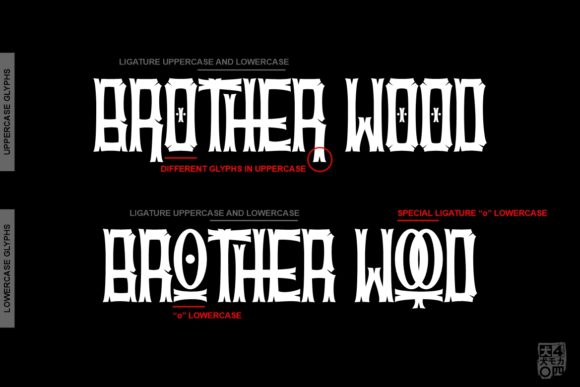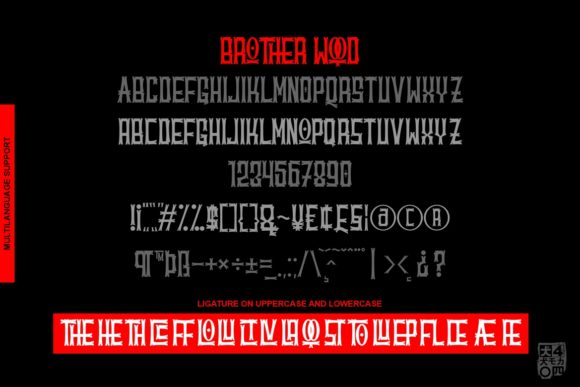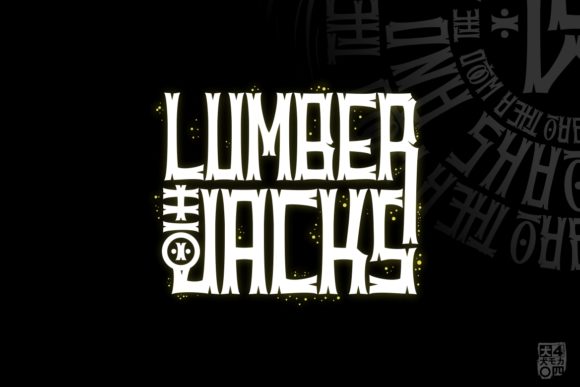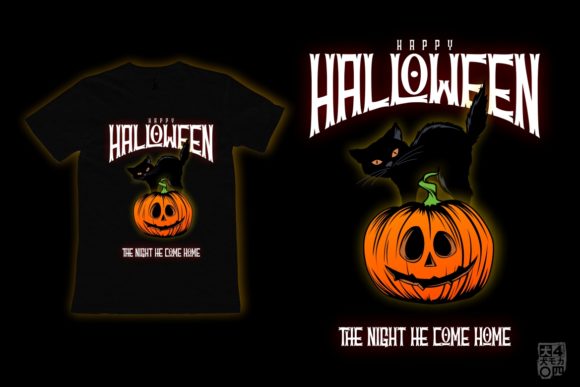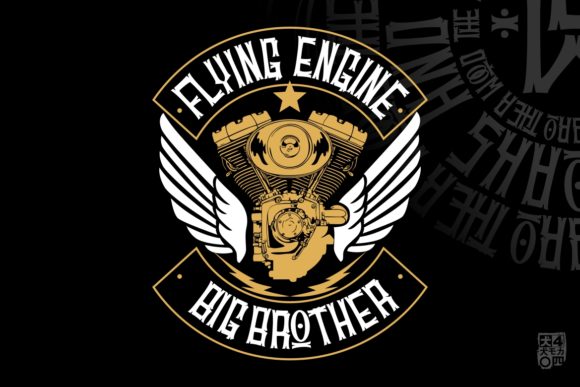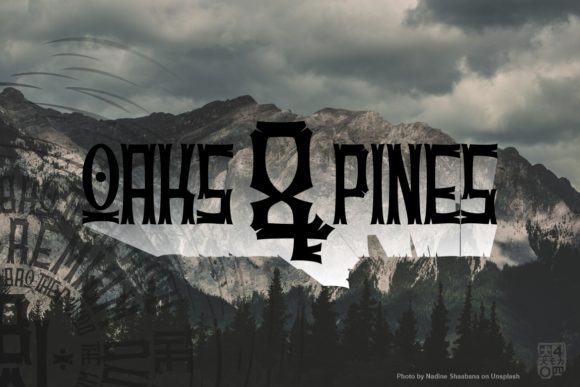
Introducing Brother Wood Font: A Bold and Unique Display Font
Are you tired of using the same old fonts in your designs? Look no further than Brother Wood Font, a bold and unique display font that’s sure to add a touch of original character to your work. With its strong, confident, and dynamic style, Brother Wood Font is perfect for designers and crafters looking to make a statement.
The Characteristics of Brother Wood Font
Brother Wood Font is a sans-serif font that’s designed to make a bold impression. Its sturdy and rugged appearance gives it a unique edge that’s perfect for headlines, titles, and other display text. The font’s bold and confident style makes it ideal for use in a variety of design projects, from posters and flyers to logos and branding materials.
What Makes Brother Wood Font So Special?
So, what sets Brother Wood Font apart from other display fonts on the market? Here are just a few things that make it so special:
- Unique Character: Brother Wood Font has a distinctive, hand-crafted feel that’s perfect for designers looking to add a touch of personality to their work.
- Bold and Confident: This font reads as strong and confident, making it perfect for use in headlines and titles.
- Dynamic Style: Brother Wood Font has a dynamic, energetic feel that’s sure to grab attention.
- Versatile: This font can be used in a variety of design projects, from print materials to digital applications.
How to Use Brother Wood Font in Your Designs
Brother Wood Font is a versatile font that can be used in a variety of design projects. Here are a few ideas to get you started:
- Posters and Flyers: Use Brother Wood Font to create eye-catching headlines and titles for your posters and flyers.
- Logos and Branding: This font is perfect for use in logos and branding materials, where a bold and confident style can make a big impact.
- Social Media Graphics: Use Brother Wood Font to create engaging social media graphics that are sure to grab attention.
- Web Design: This font can be used in web design projects, such as headings and titles, to add a touch of personality to your website.
Tips for Getting the Most Out of Brother Wood Font
Here are a few tips for getting the most out of Brother Wood Font:
- Use it Sparingly: Because Brother Wood Font is a bold and attention-grabbing font, it’s best to use it sparingly in your designs. Use it for headlines and titles, and pair it with a simpler font for body text.
- Experiment with Colors: Brother Wood Font looks great in a variety of colors, so don’t be afraid to experiment and find the perfect color scheme for your design.
- Pair it with Other Fonts: Brother Wood Font can be paired with a variety of other fonts to create a unique and interesting design. Try pairing it with a sans-serif font for a modern look, or with a serif font for a more traditional feel.
Brother Wood Font is a bold and unique display font that’s perfect for designers and crafters looking to add a touch of original character to their work. With its strong, confident, and dynamic style, this font is sure to make a statement in any design project. Whether you’re creating posters and flyers, logos and branding materials, or social media graphics and web design projects, Brother Wood Font is a great choice.